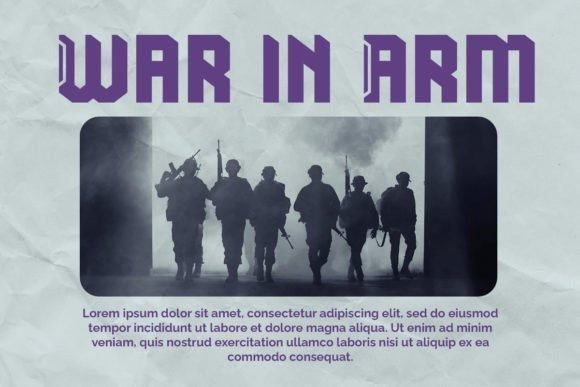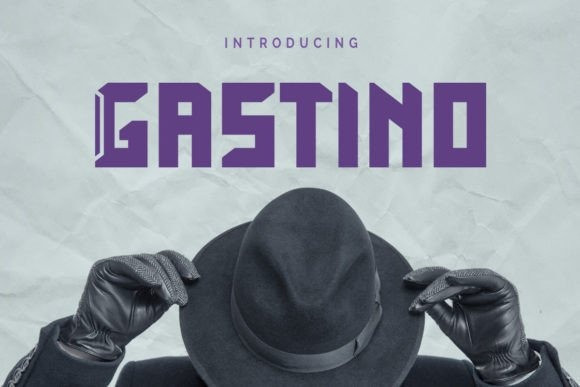
Gastino Futuristic Font
Gastino Futuristic Font is a casual and unique display font. Gastino is designed for any project, this font is perfect for poster design, logotype design, advertising, and many more.